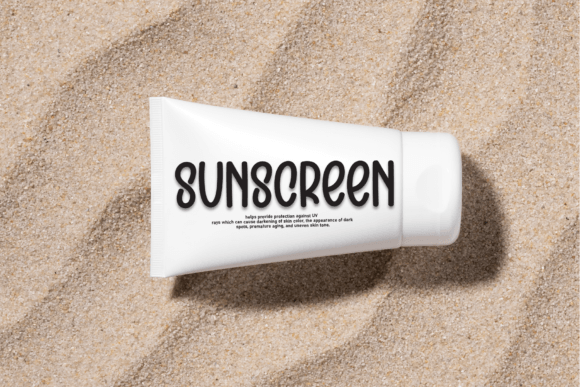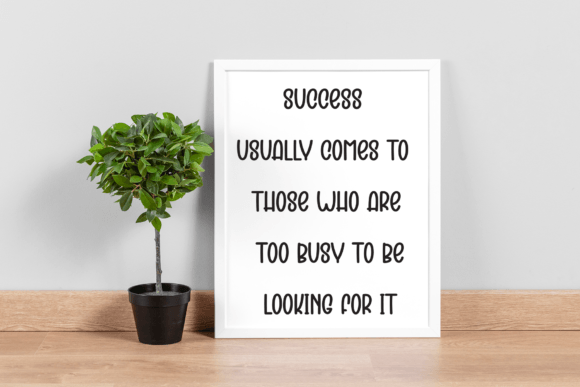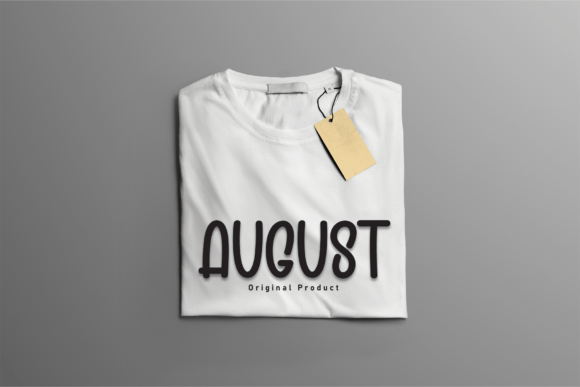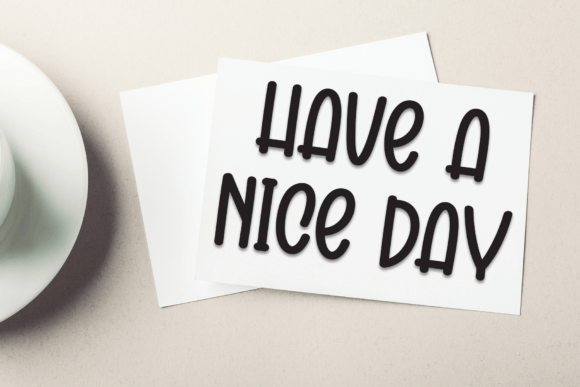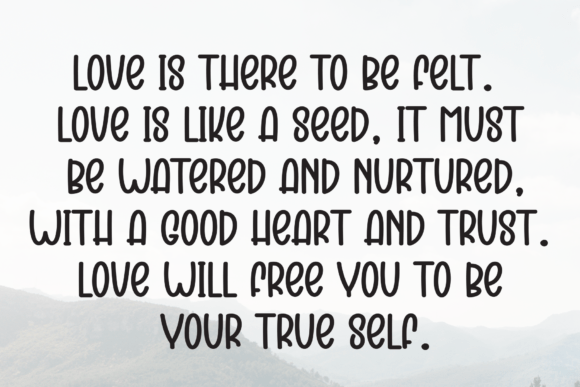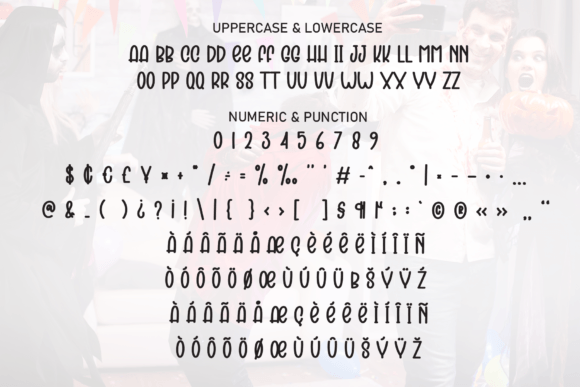
Introduction to Party Halloween Font Font
Fonts play a crucial role in design, and the Party Halloween Font font is a typeface that brings both character and versatility to any project. Whether you’re working on a branding project, a website, or a print design, the Party Halloween Font font offers a unique style that can elevate your work.
Party Halloween is a casual sans-serif font that captures a relaxed and friendly vibe with its natural, flowing strokes.
Ideal for personal projects, social media, and invitations, it brings an effortless, charming touch to any design The fontβs easygoing style adds warmth and authenticity.
Key Features of Party Halloween Font Font
The Party Halloween Font font is more than just a typeface β it’s a design tool that helps you communicate your message with style and clarity. Its unique character set and versatile design make it suitable for a wide range of applications, from elegant invitations to bold headlines.
With its carefully crafted letterforms and balanced proportions, the Party Halloween Font font ensures readability and visual appeal across all mediums.
The Party Halloween Font font stands out with its unique design, exceptional readability, and versatility across various design applications.